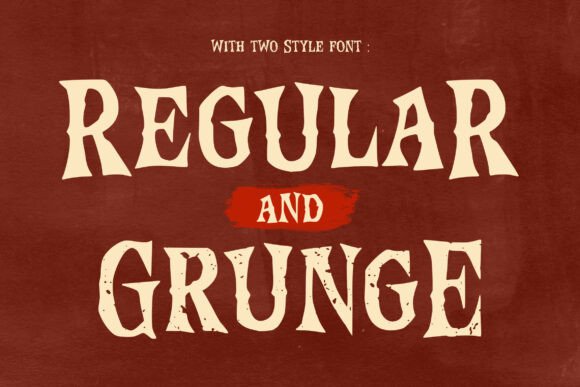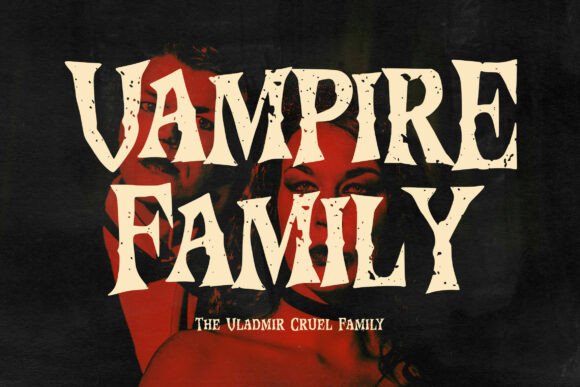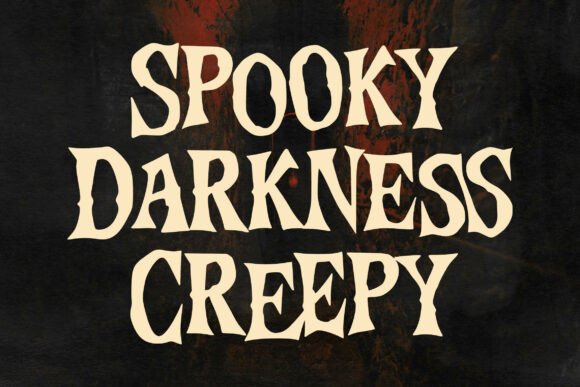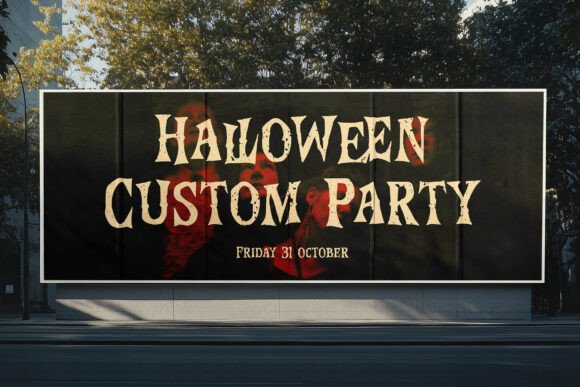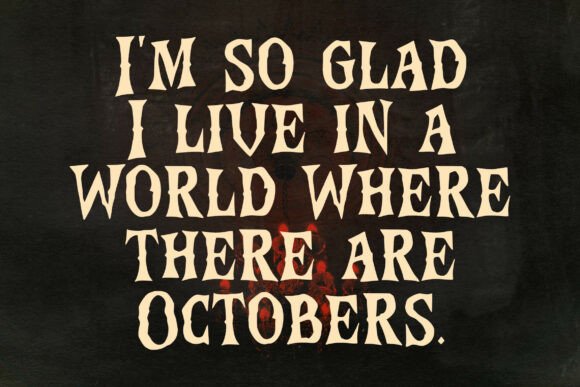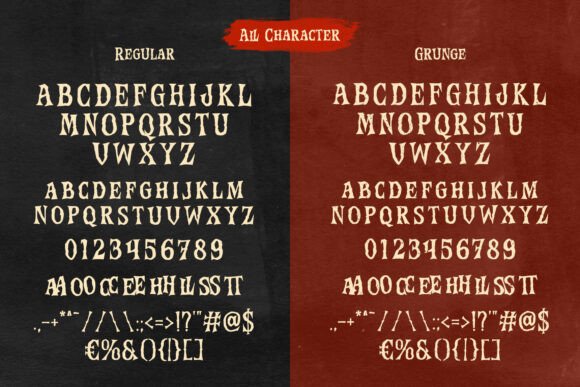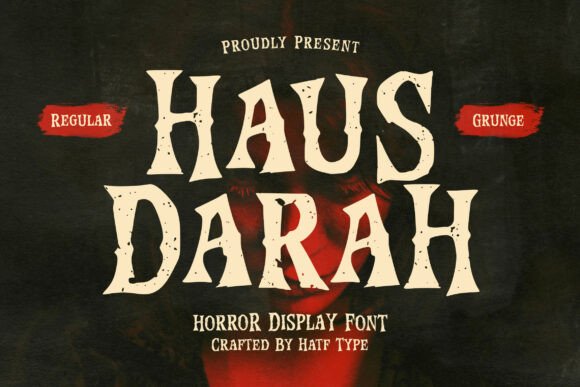
Unleash the Horror with Haus Darah Font: A Spine-Tingling Choice for Designers
Are you ready to plunge into the surreal palpitations of the night and create designs that send shivers down the spine? Look no further than Haus Darah, a horror-inspired font that’s handcrafted to convey chilling tales through each letter. This font is perfect for designers and crafters who seek to transform the mundane into spine-tingling fear.
Inspiration from the Dark Side
Haus Darah draws inspiration from blood-touched fonts, gaping wounds, and enigmatic graffiti, making each character a masterpiece of unsettling horror that’s impossible to overlook. The font’s creator has carefully crafted each letter to evoke a sense of eeriness, ensuring that your designs will leave a lasting impression on your audience.
Two Unique Styles to Choose From
Haus Darah unveils in two unique yet congruous styles: Regular and Grunge. The Regular form offers a bold, unambiguous narrative with stark clarity, perfect for striking title applications on posters, book covers, or horror-branded merchandise requiring a dramatic punch without sacrificing legibility.
Regular Style: Bold and Clear
The Regular style of Haus Darah is ideal for designs that require a clear and bold statement. Its clean lines and precise curves make it perfect for titles, headings, and short paragraphs. This style is sure to grab attention and convey the horror theme with ease.
Grunge Style: Raw and Haunting
The Grunge version of Haus Darah provides a raw encounter with each character, as if scarred by the distress of a foreboding world. This style is gritty, haunting, and perfect for designs that require a more rugged and unsettling look. The Grunge style adds a layer of texture and depth to your designs, making them even more captivating.
Harnessing the Potent Eeriness of Haus Darah
Haus Darah is a versatile font that can be used for diverse purposes, from suspense-driven horror designs to eerie and haunting artwork. Be it a book cover, poster, or horror-branded merchandise, this font is sure to add a touch of spine-tingling fear to your creations.
Perfect for Horror-Themed Designs
If you’re working on a horror-themed project, Haus Darah is the perfect choice. The font’s eerie and unsettling style will transport your audience to a world of fear and suspense, making your design a memorable one.
Haus Darah is not just a font; it’s a tool for designers and crafters who seek to create unique and captivating designs. Whether you’re a professional designer or a DIY enthusiast, this font is perfect for adding a touch of horror to your creations.
Tips for Using Haus Darah
To get the most out of Haus Darah, here are some tips:
- Use the Regular style for bold and clear titles, and the Grunge style for a more rugged and haunting look.
- Experiment with different colors and textures to add depth and dimension to your designs.
- Pair Haus Darah with other horror-themed fonts or graphics to create a cohesive look.
- Don’t be afraid to get creative and try new things – Haus Darah is a versatile font that can be used in many different ways.
In conclusion, Haus Darah is a horror-inspired font that’s perfect for designers and crafters who seek to create spine-tingling designs. With its two unique styles, Regular and Grunge, this font offers a range of possibilities for creating captivating and eerie designs. Whether you’re working on a horror-themed project or just want to add a touch of fear to your creations, Haus Darah is the perfect choice.